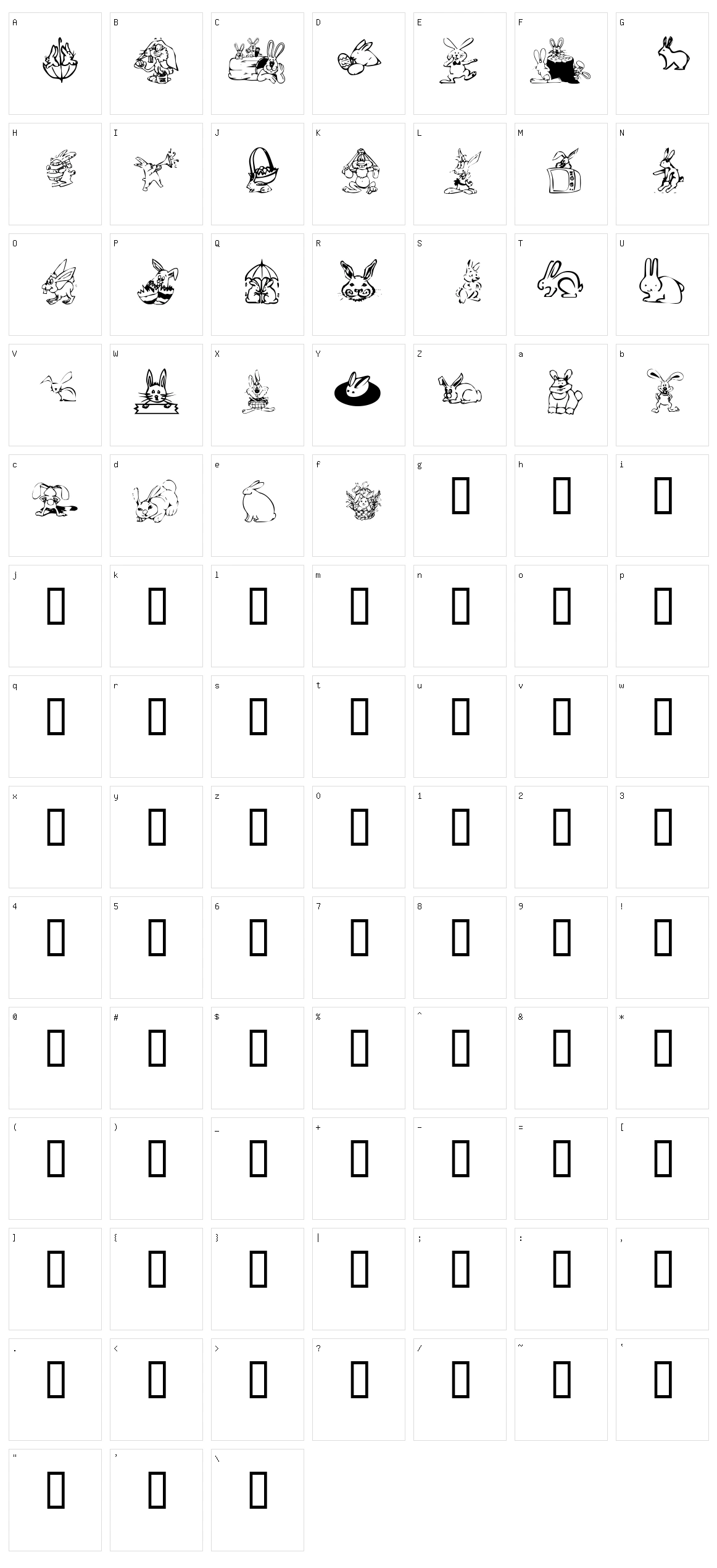
The free font KR Bunny Dings is carefully designed by Kat's Fun Fonts, showcasing a thoughtful balance of creativity and usability and falls under the Easter font style. When you download the ZIP file, it contains only 39.76 KB of font files, making it lightweight and quick to download. Please review the license details below to understand permitted usage and distribution rights. If license information is not available, we recommend using this font for personal projects only or contacting the author directly for commercial usage permissions.